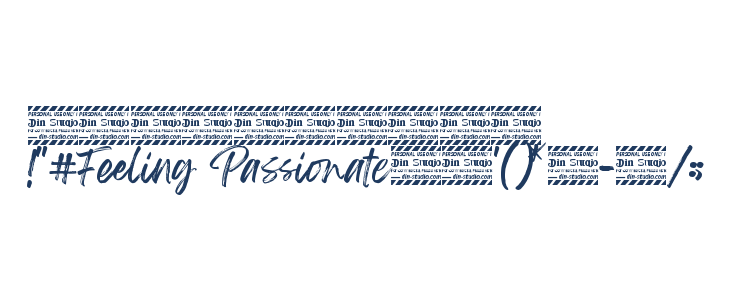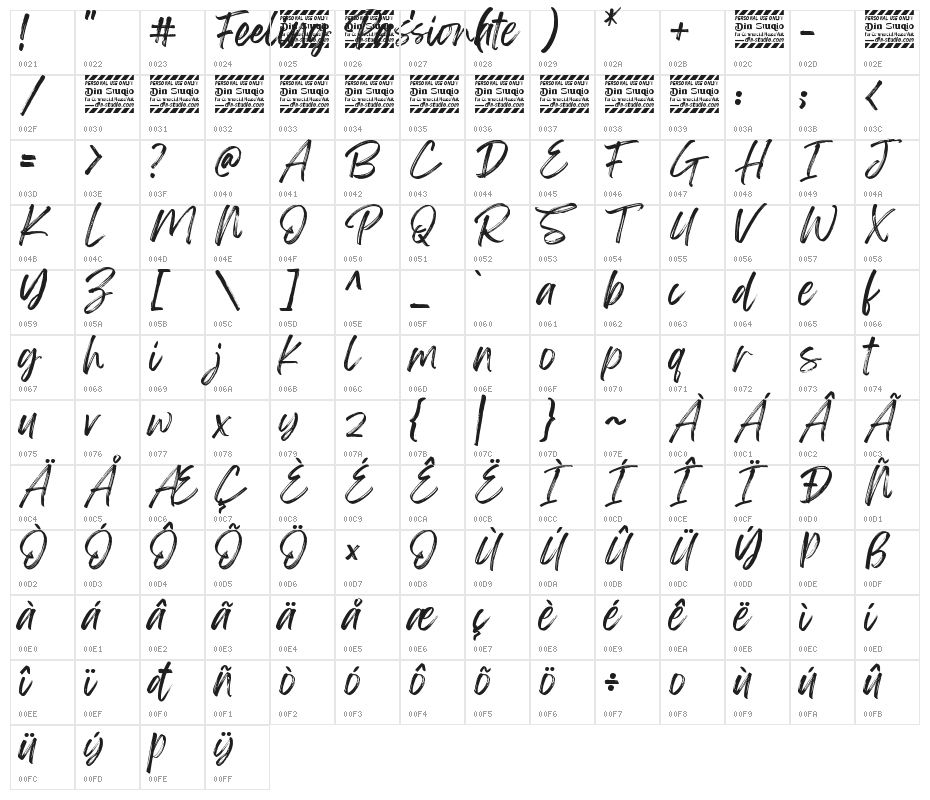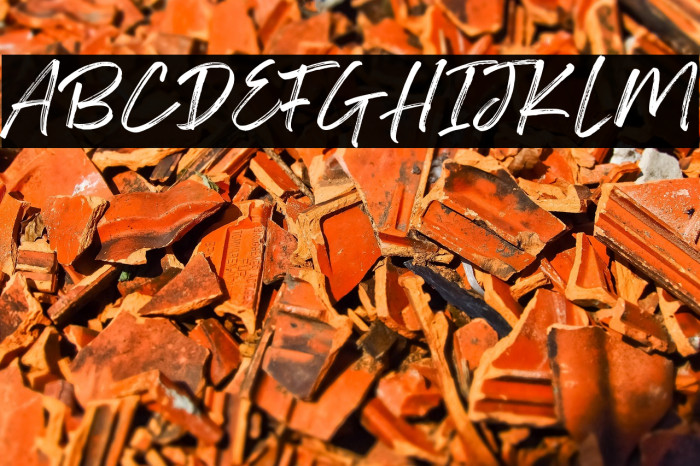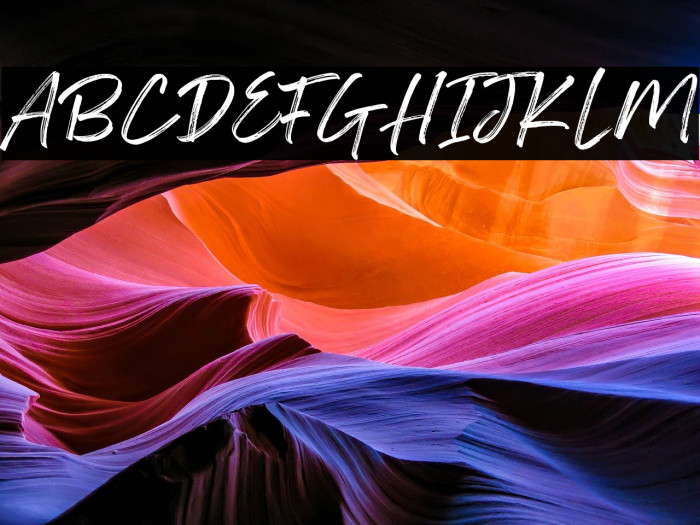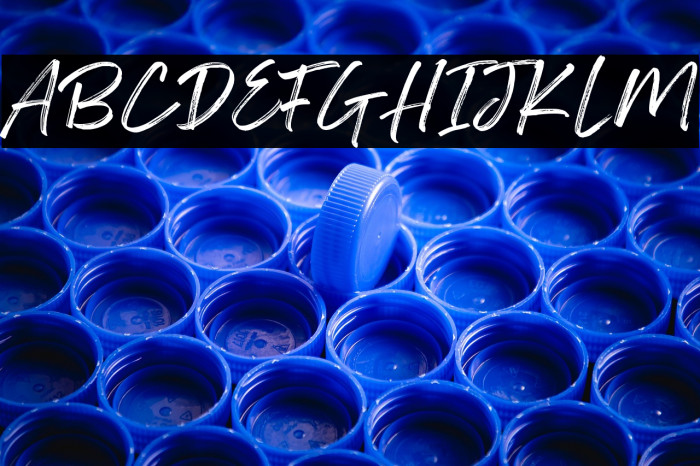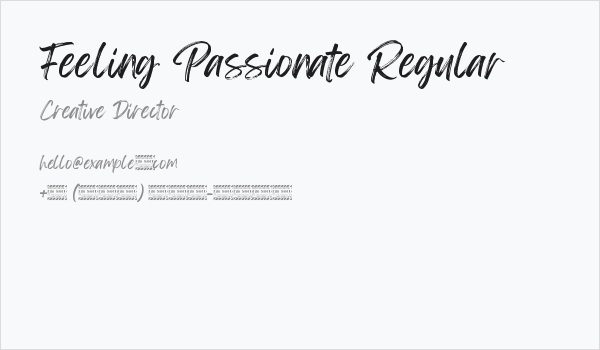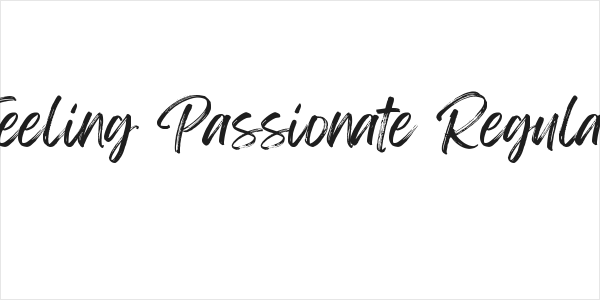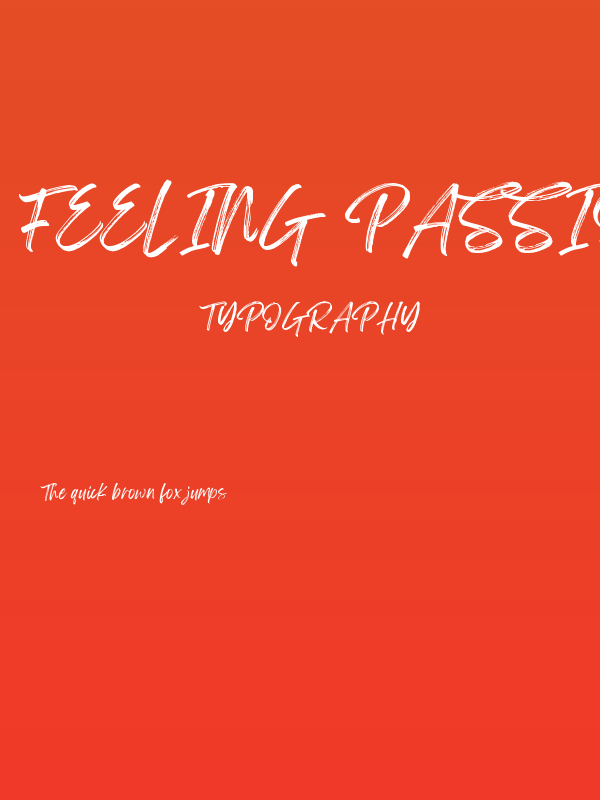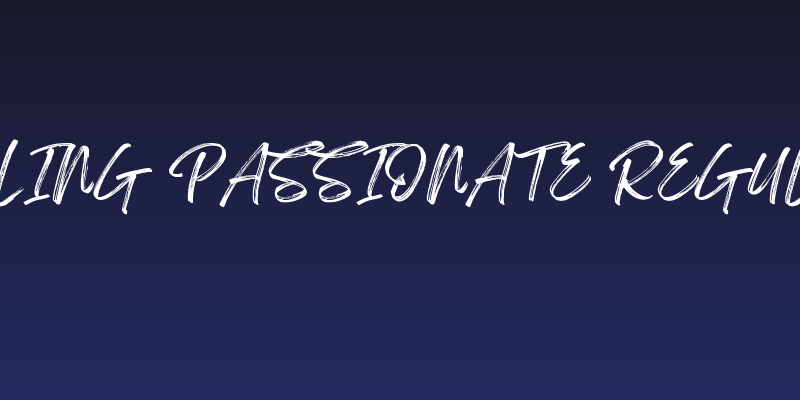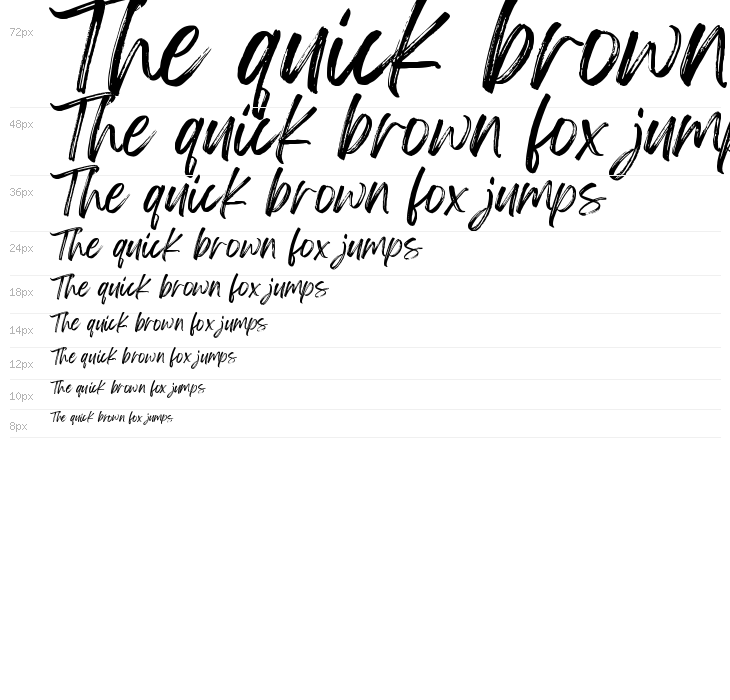
Feeling Passionate Regular Font
Feeling Passionate Regular Description
This font exudes a dynamic and energetic vibe, characterized by its bold, brush-like strokes that convey a sense of movement and passion. The uppercase and lowercase letters are crafted with a fluid, handwritten style, giving it a personal and expressive touch. The strokes vary in thickness, adding a textured and artistic feel to the characters. The font's design is both modern and edgy, making it suitable for projects that require a strong visual impact. The special characters maintain the same expressive style, ensuring consistency across all elements.
| Proposed Projects | Ideal for branding, posters, social media graphics, and any project that requires a bold, artistic touch. |